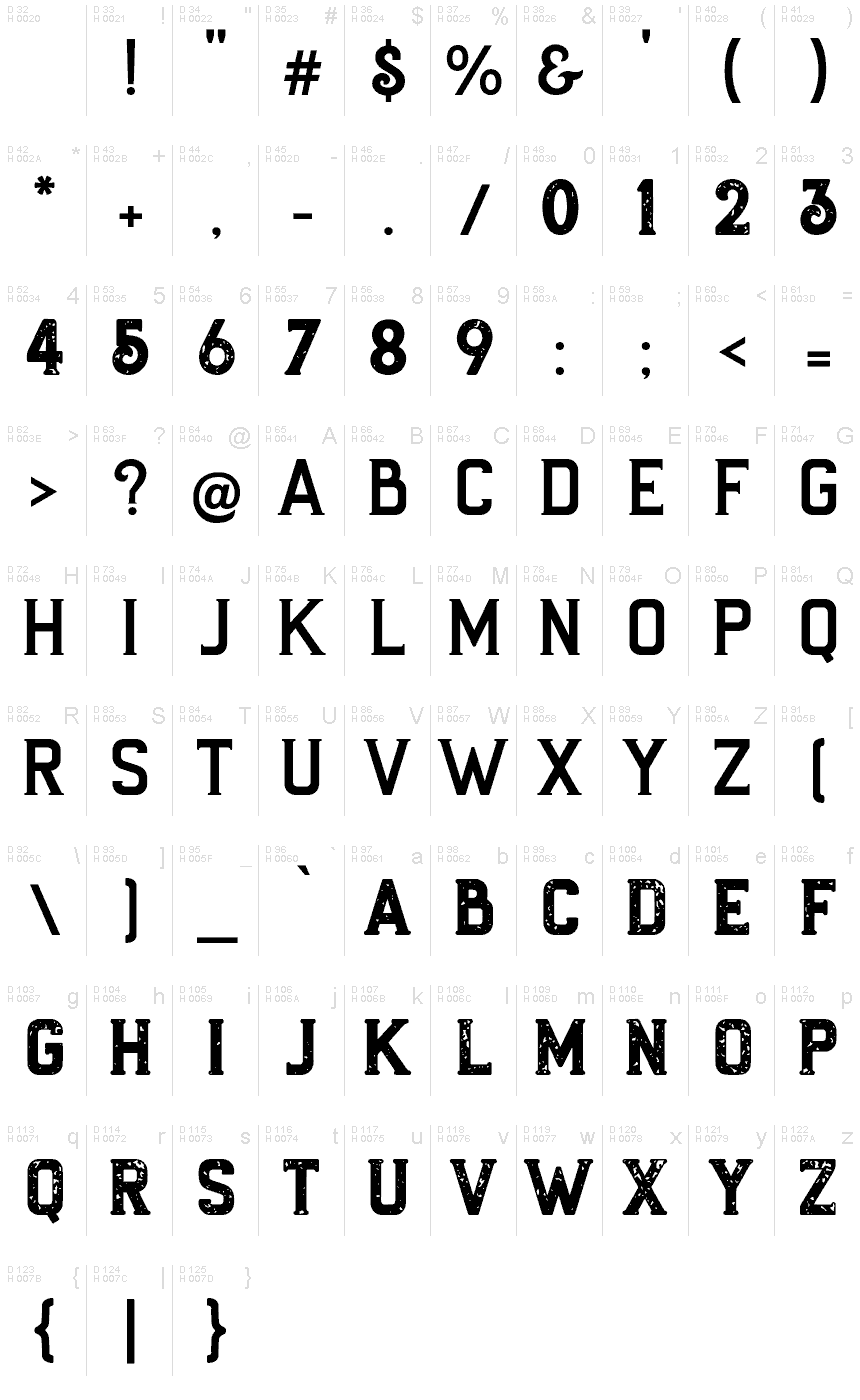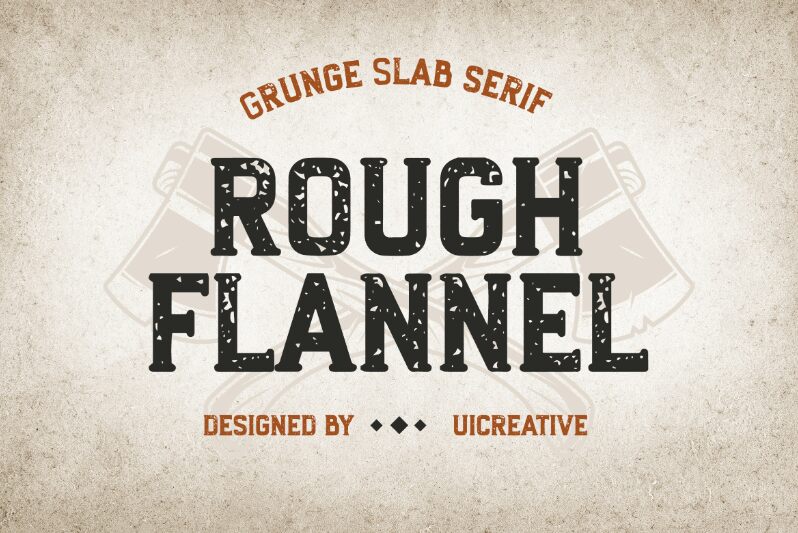
rough flannel Regular
Rough Flannel font by UI Creative is a display font with an age-worn and eroded appearance. The stylishly rugged texture makes this resource noticeably distinct. A vintage vibe is captured within the design where letter boundaries are uneven for an industrial feel as well as a nostalgic influence.
Review Rough Flannel font applications in package design, invitations, and logotypes. Utilize the alphabetical characters in books, brochures, newspaper headlines, magazines, posters, and websites. Insert it on social media banners or advertisements that will be used for both online and offline purposes such as billboards.